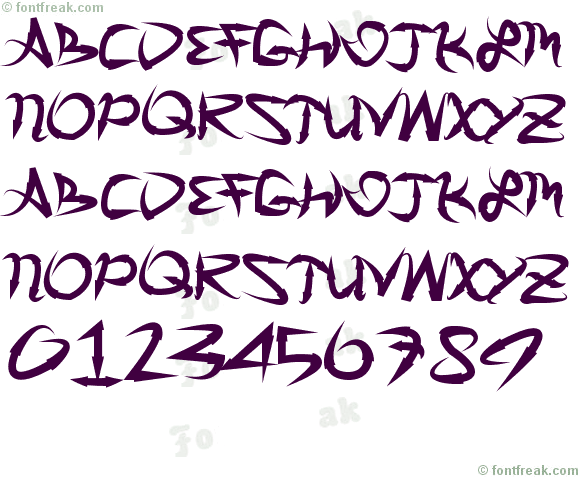
GreatArrows
About GreatArrows
The GreatArrows font by XEROGRAPHER FONTS is a striking display typeface that captivates with its unique character. This font showcases an expressive and bold design, characterized by its sharp angles and dynamic strokes that convey a sense of movement and energy. The stroke weight varies, contributing to a visually engaging contrast that enhances its overall impact. Notably, the spacing between letters is well-balanced, ensuring legibility while maintaining a playful aesthetic. The decorative elements, such as the pointed tips and exaggerated curves, add a distinctive flair that makes this typeface stand out.
GreatArrows is particularly well-suited for a variety of creative applications. Its bold presence makes it an excellent choice for movie posters, where attention-grabbing typography is essential. The font also works beautifully for event flyers, infusing a sense of excitement and urgency. Additionally, it can elevate restaurant menus, providing a modern yet artistic touch that complements the dining experience. Content creators will find it a fantastic option for social media graphics, as its unique style can enhance engagement and shareability. Graphic designers and small business owners can leverage the GreatArrows font free download to add a memorable touch to branding and promotional materials.
What sets GreatArrows apart is its ability to convey personality and creativity while remaining versatile enough for various design projects. This typeface is perfect for those seeking to make a statement with their typography, offering an unconventional yet appealing option that resonates with audiences. Whether used in print or digital mediums, GreatArrows provides an artistic edge that captures attention and leaves a lasting impression.